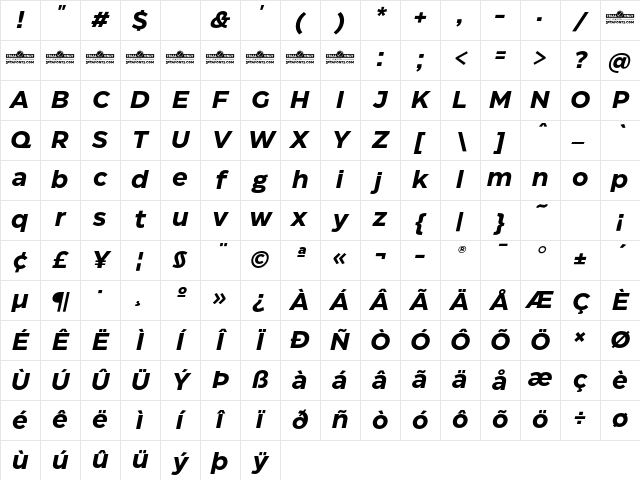
Eastman Trial Bold Italic
Foundry: Zetafonts
Designer: Francesco Canovaro
Design Context for Eastman Trial
Eastman Trial is a composed and adaptable typeface that performs quietly and consistently across a wide range of design contexts. The slanted form adds forward momentum and visual energy. Its bold stroke weight gives it real presence on the page.
Pro Tip: Use Eastman Trial for emphasis, pull quotes, and subheadings where its slanted energy can add rhythm to the layout.
Who designed the Eastman Trial Bold Italic font?